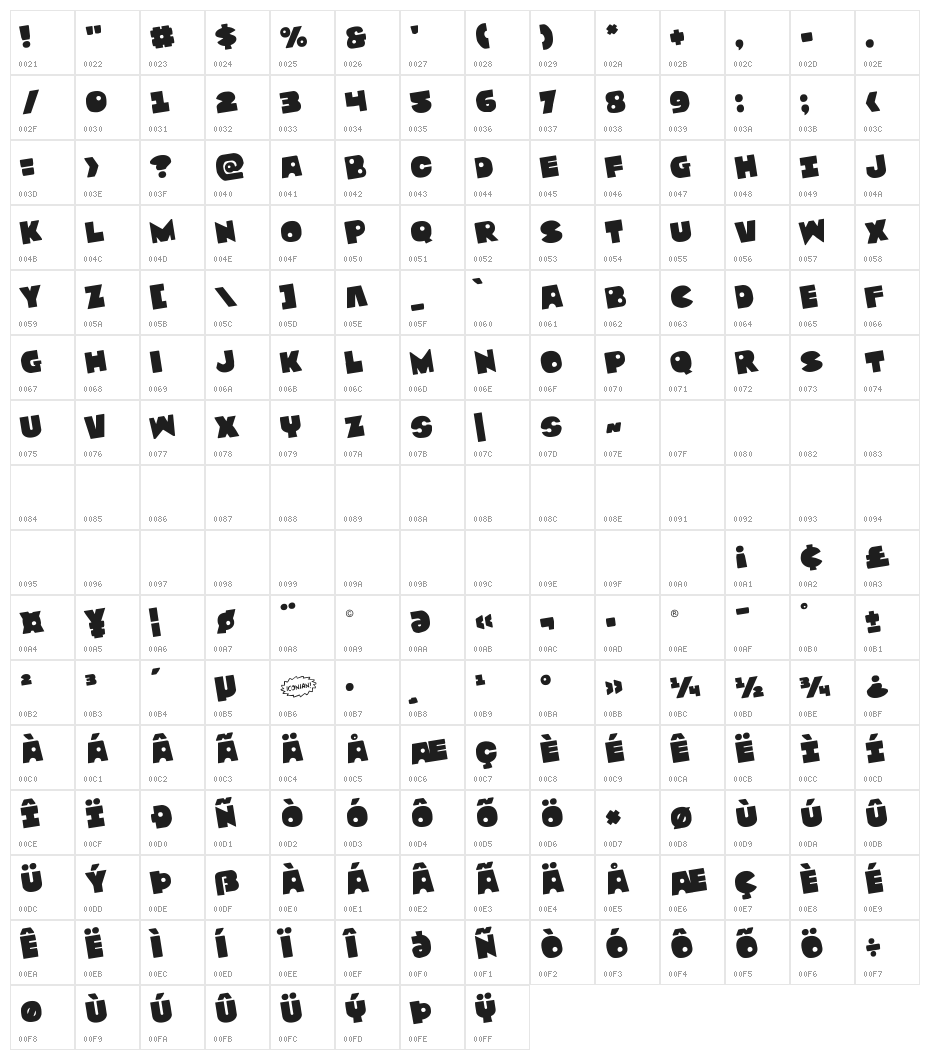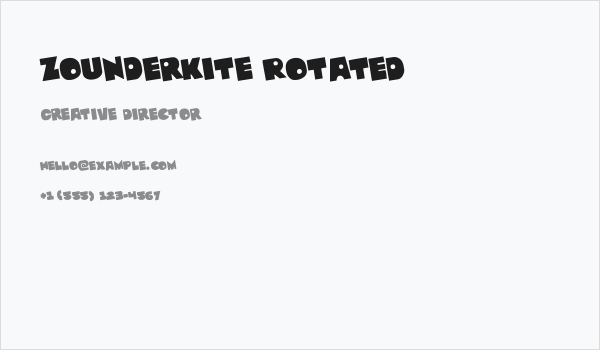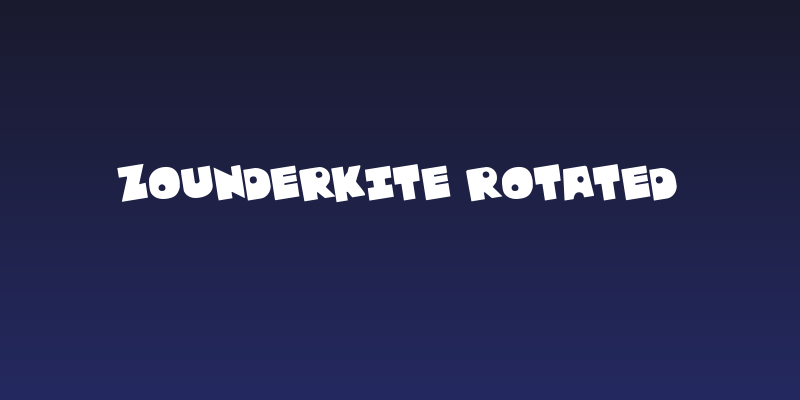
Zounderkite Rotated Font
Zounderkite Rotated Description
This font features bold, playful characters with a distinctively chunky and whimsical design. Each letter is crafted with a sense of fun, making it ideal for eye-catching displays. The characters are uniformly bold, with a slightly irregular shape that adds to their charm. The numbers and special characters maintain the same playful style, ensuring consistency across all text elements. The font's unique style is perfect for projects that require a touch of humor and creativity.